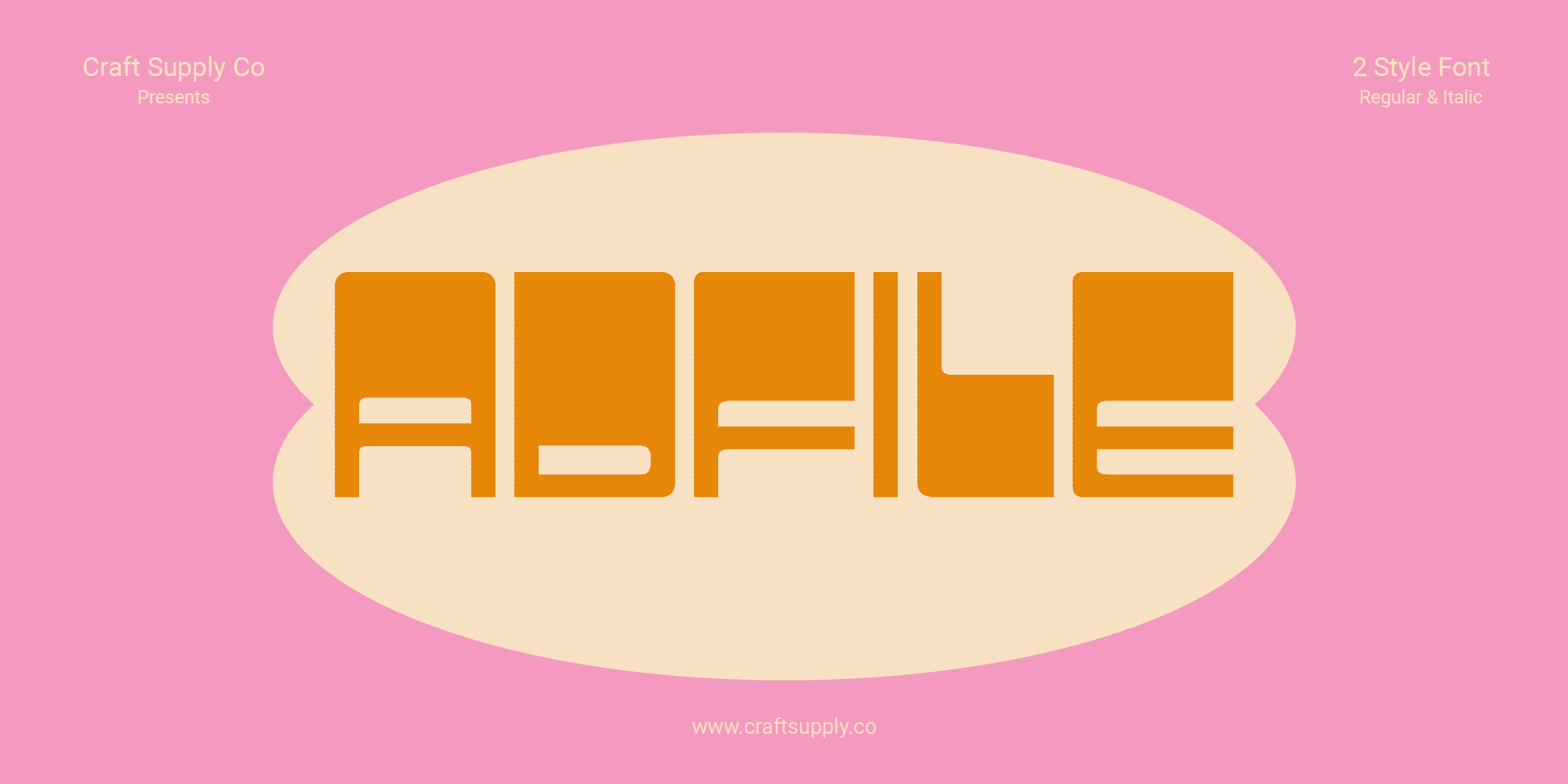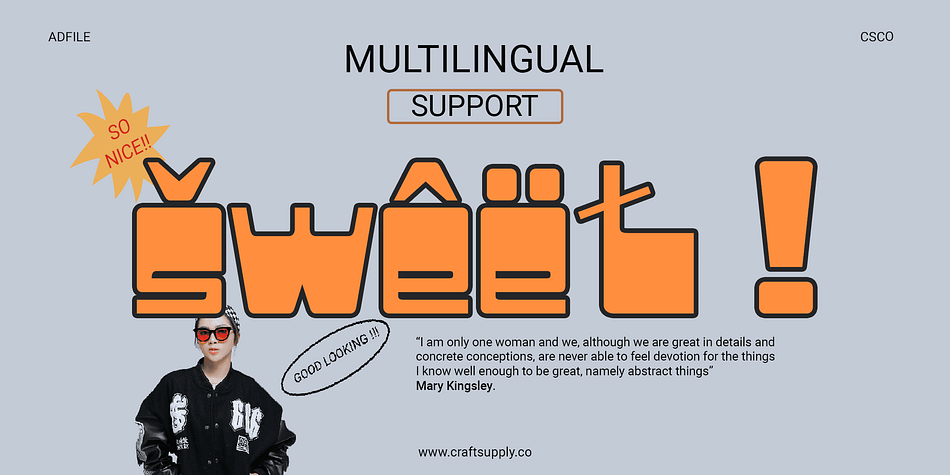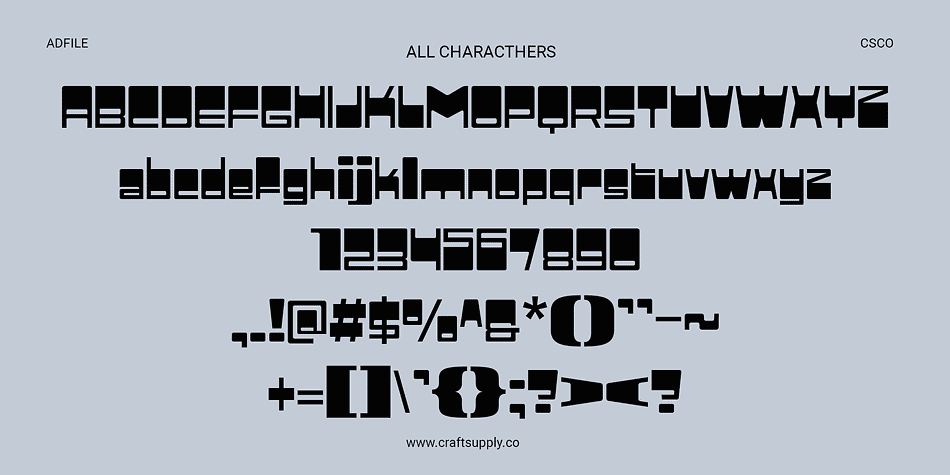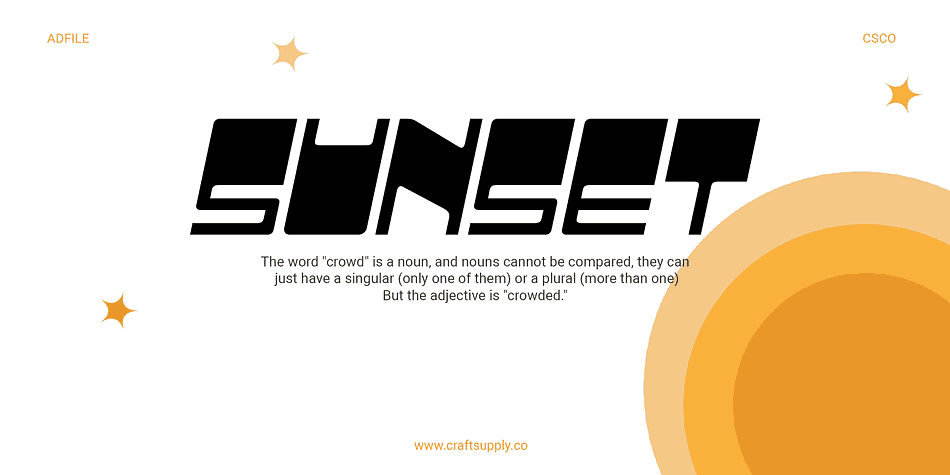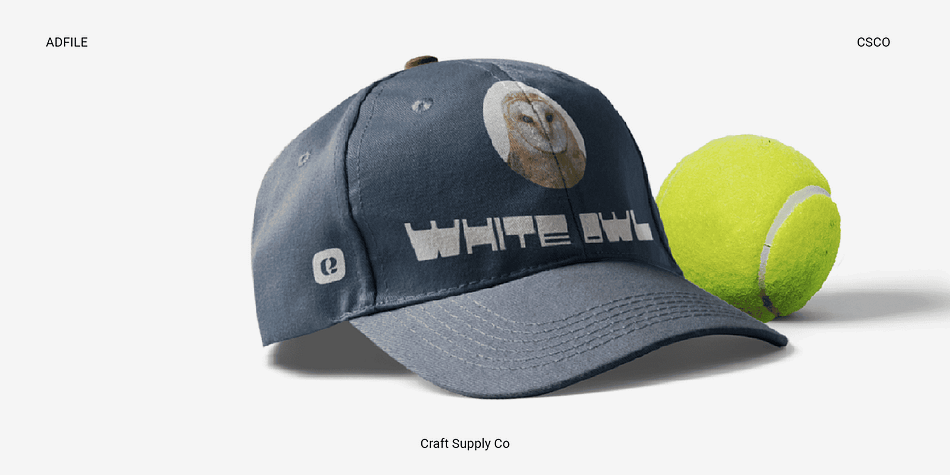
Adfile
Adfile is a retro font family. This typeface has two styles and was published by Craft Supply Co.
Adfile Font: Elevate Display with Funky Square Sans Serif
Fun Vibes Unleashed
Adfile, a font that redefines fun, infuses every character with a playful spirit, making it the go-to choice for vibrant display designs.
Squared Elegance
Breaking away from the ordinary, Adfile’s square design adds a touch of modernity, creating a dynamic visual impact that’s impossible to ignore.
Versatile Display Marvel
From posters to digital media, Adfile’s versatility shines, ensuring your design communicates energy and excitement across various platforms.